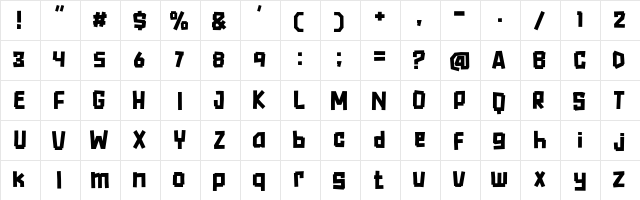
Low Batt Regular
| Foundry | Khurasan |
| Designer | Khurasan |
Design Context for Low Batt Typeface
Low Batt takes a measured approach to typography — its balanced proportions and neutral character make it a reliable workhorse for both digital and print work.